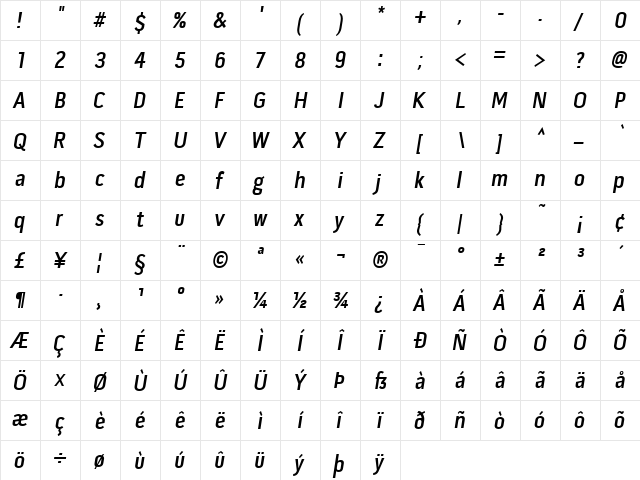
Pill Gothic 300mg Semibd Obq
| Designer | Christian Robertson |
Design Context for Pill Gothic 300mg Typeface
Pill Gothic 300mg takes a clean, functional approach — its unadorned letterforms prioritise legibility and work reliably across screen and print environments.
Font Pairing: Works well alongside a characterful serif or display font that can carry the expressive load while Pill Gothic 300mg handles the functional copy.
Pro Tip: Use Pill Gothic 300mg for UI labels, navigation, and short-form body copy where clean legibility is the priority.